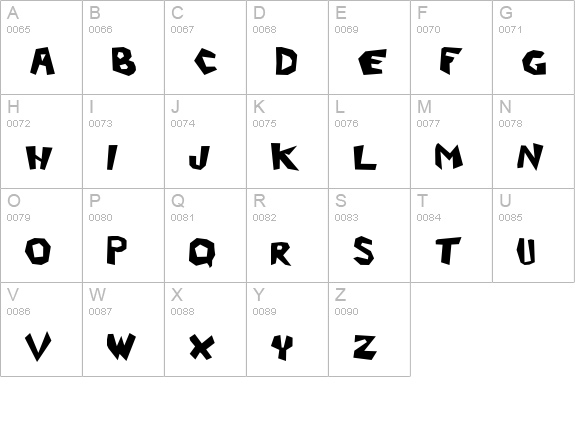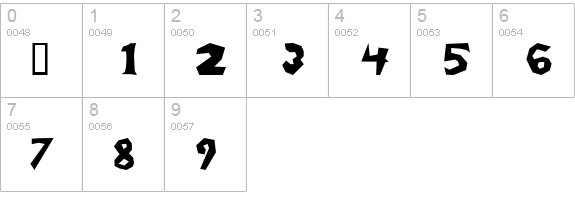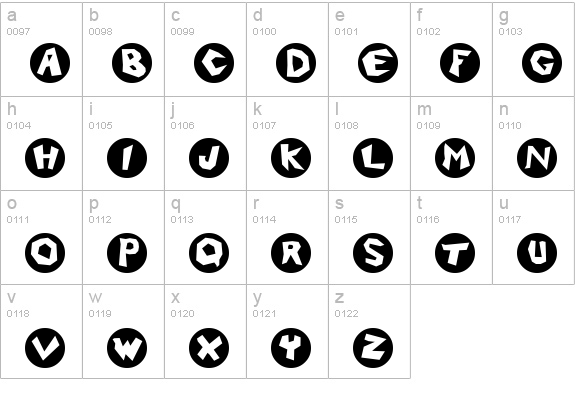
Introducing Dogs on Mars? font - a playful and quirky typeface that will bring a touch of fun and whimsy to your design projects. This font features unique characters with a futuristic twist, perfect for adding a sense of adventure to your creations. Dogs on Mars? font is the perfect choice for any project that needs a lighthearted and imaginative touch. Whether you're designing a children's book, creating a poster for a space-themed event, or adding a fun element to your social media graphics, this font will help you stand out from the crowd. Best of all, Dogs on Mars? font is freely available to download at FontsMarket.com. So go ahead and add this delightful font to your collection today and let your creativity soar to new heights!